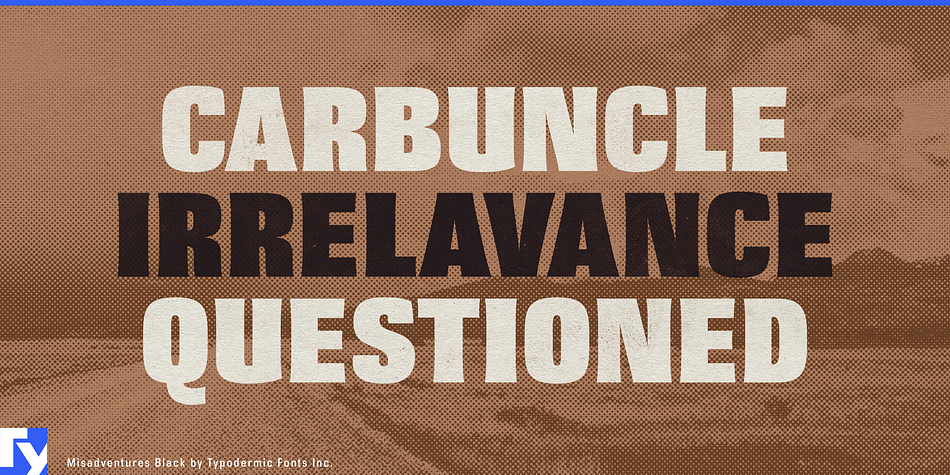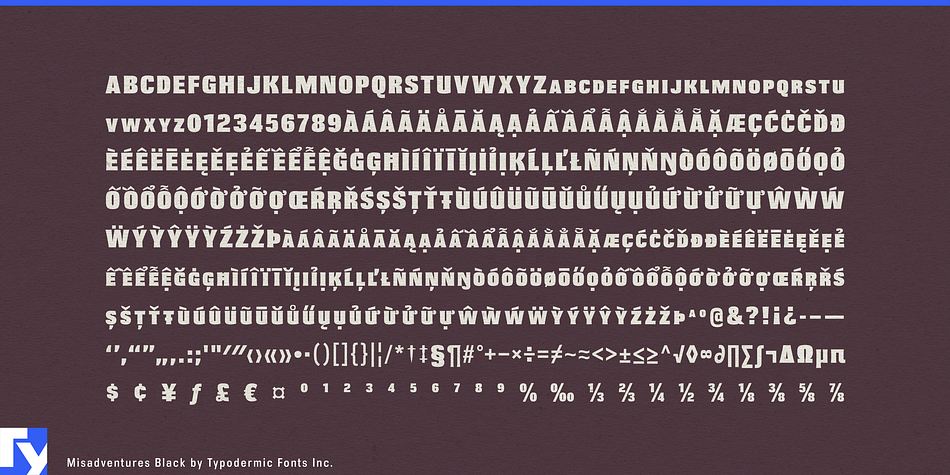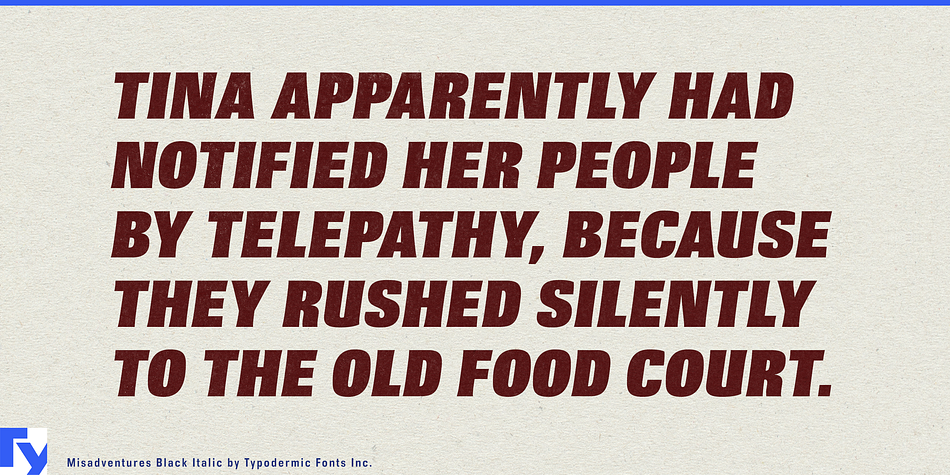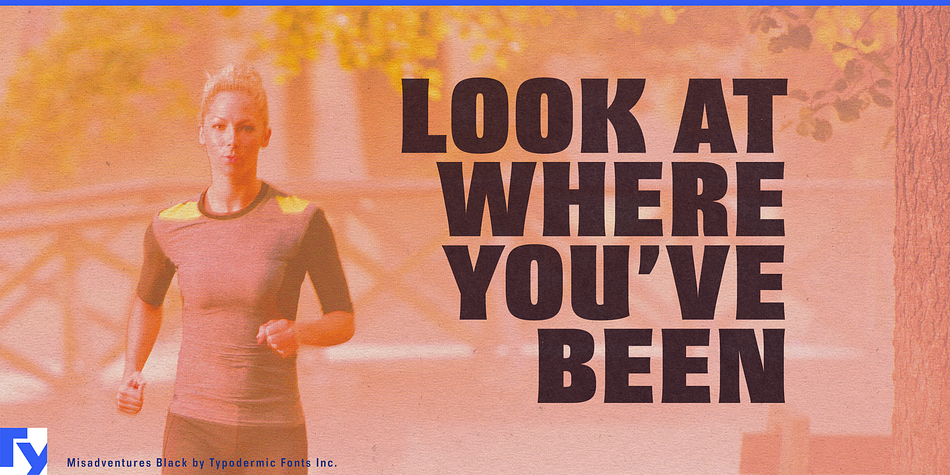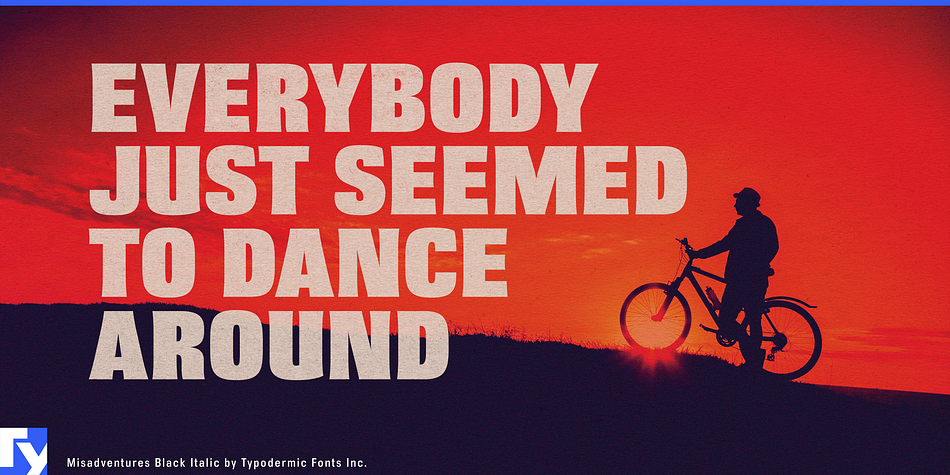
Misadventures is a display sans font family. This typeface has two styles and was published by Typodermic Fonts Inc.
Misadventures is a heavy-flare, small-cap fashion headline font family in Black & Black Italic